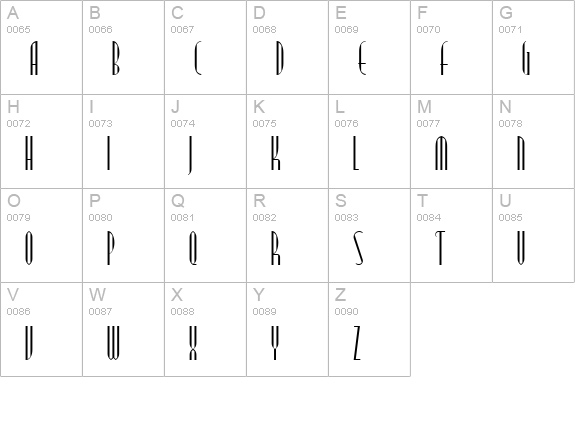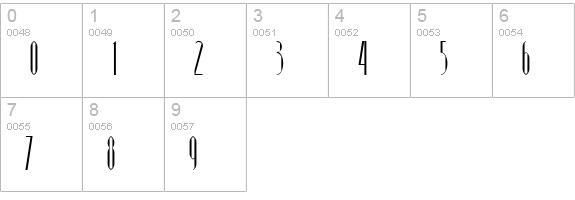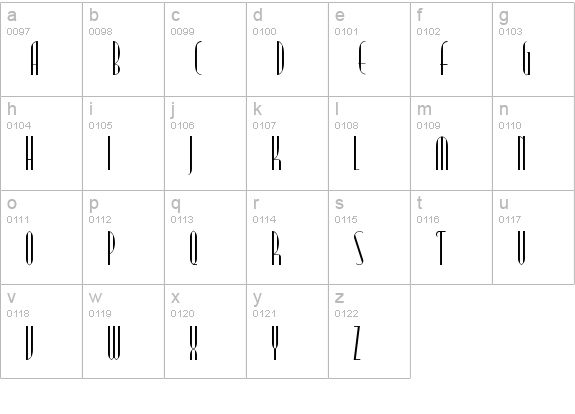
ModernTypography Font Details
ModernTypography font is a sleek and contemporary typeface that combines clean lines with a touch of sophistication. Its modern design makes it ideal for a wide range of projects, from branding to editorial design. This versatile font is perfect for creating eye-catching headlines, elegant logos, and stylish layouts. The best part about ModernTypography font is that it is available for free download at FontsMarket.com. This means that you can easily access this high-quality font and use it in your projects without any cost. Whether you are a seasoned designer or just starting out, ModernTypography font is a valuable addition to your font collection. Download it today and elevate your designs with its modern and stylish aesthetic.